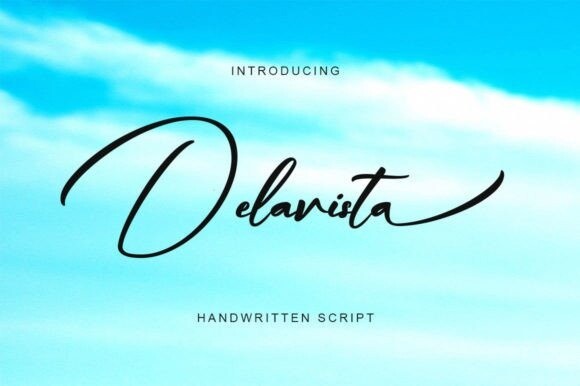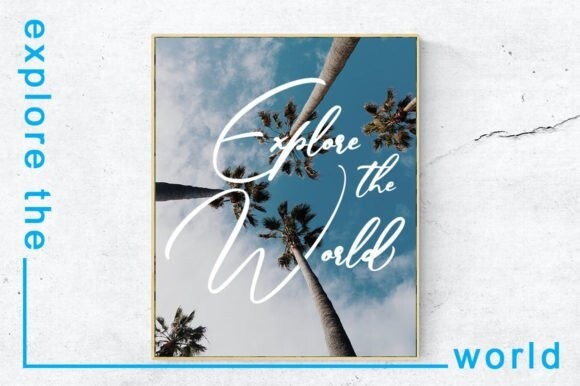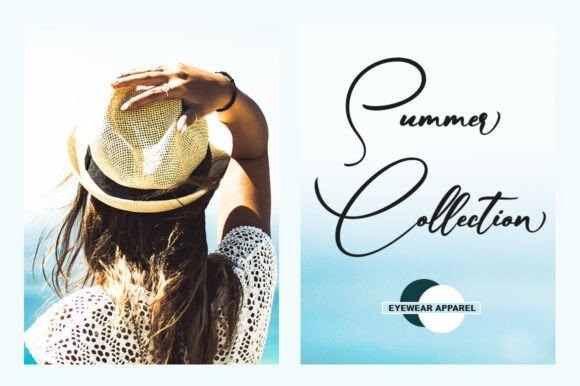
Delavista Font
Delavista Font is a flowing handwritten font explained with a touch of elegance, perfect for your favorite projects. Fall in love with its completely different and timeless style and use it to create spectacular designs!